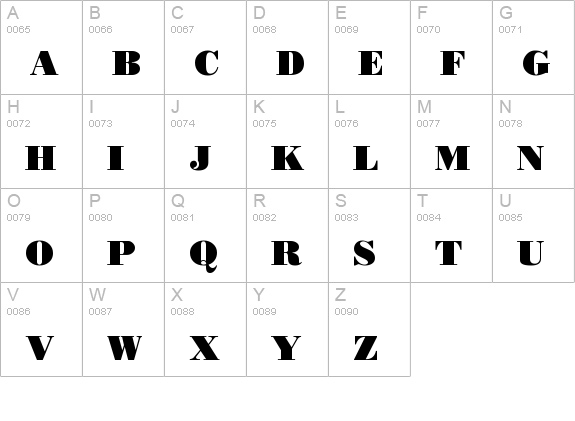
BostonBlack Regular is the standard, neutral variant in the BostonBlack typeface family \xE2\x80\x94 well suited to general body text, paragraphs, and standard typographic work.
BostonBlack Regular font is a stylish and modern typeface that exudes elegance and sophistication. With its bold strokes and clean lines, this font is perfect for adding a touch of class to any design project. Whether you're creating a logo, poster, or website, BostonBlack Regular font will make your text stand out and grab the attention of your audience. The best part? BostonBlack Regular font is available for free download at FontsMarket.com. That's right, you can enhance your projects with this stunning font without spending a dime. So why wait? Download BostonBlack Regular font today and take your designs to the next level!